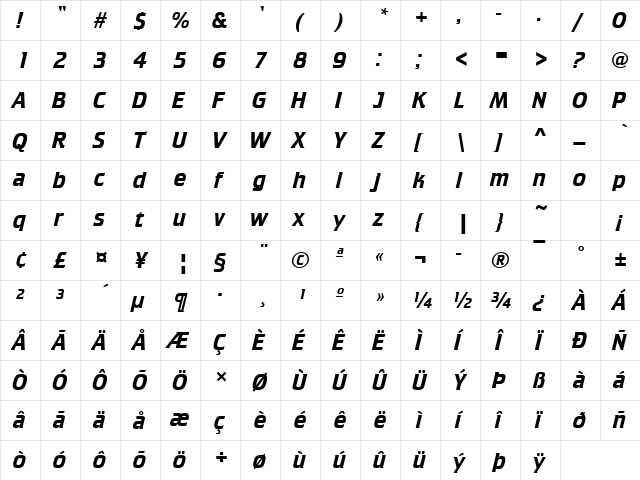
URWCrisiumT Regular
Design Context for URWCrisiumT Typeface
URWCrisiumT is a composed and adaptable typeface that performs quietly and consistently across a wide range of design contexts.